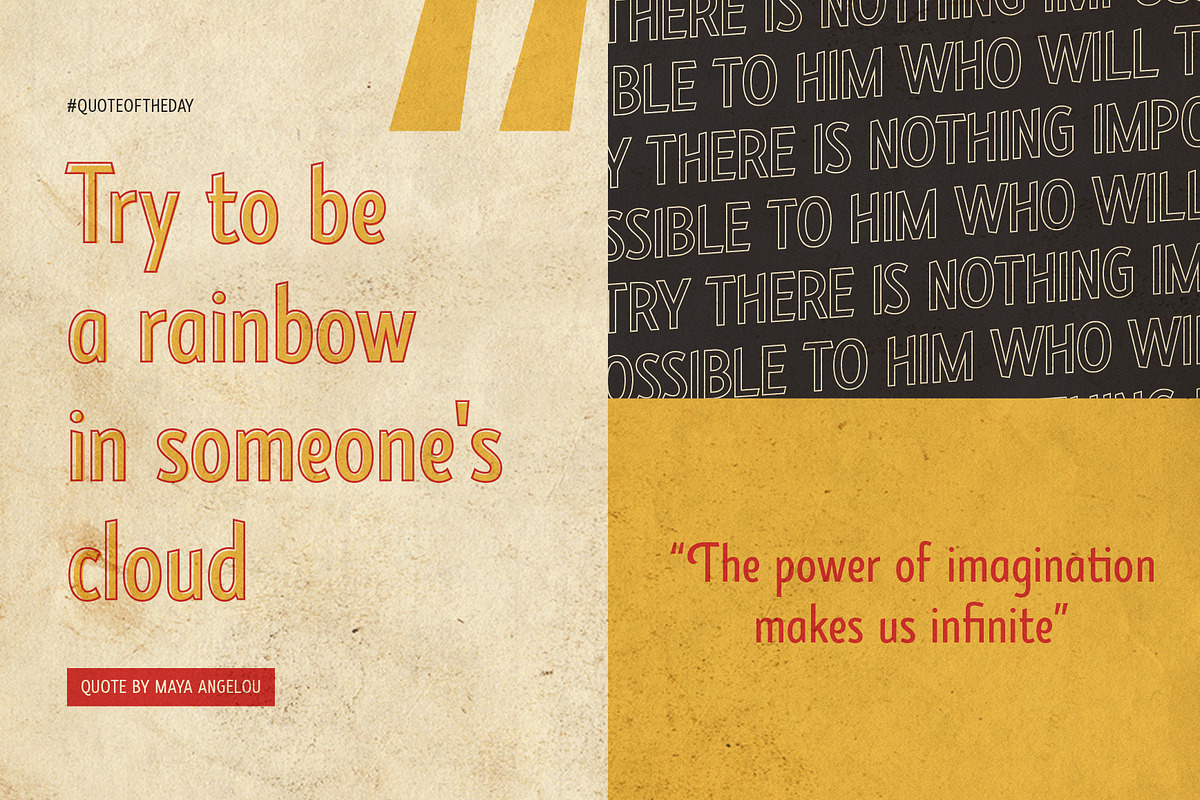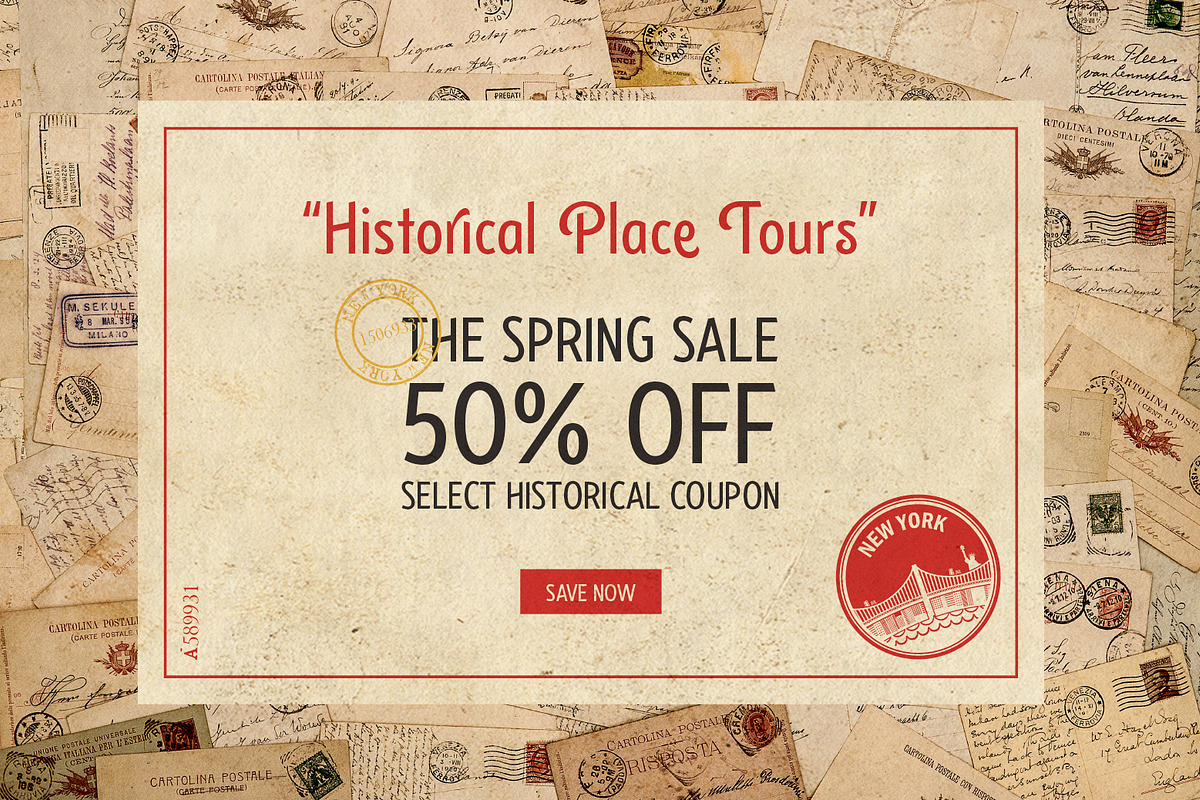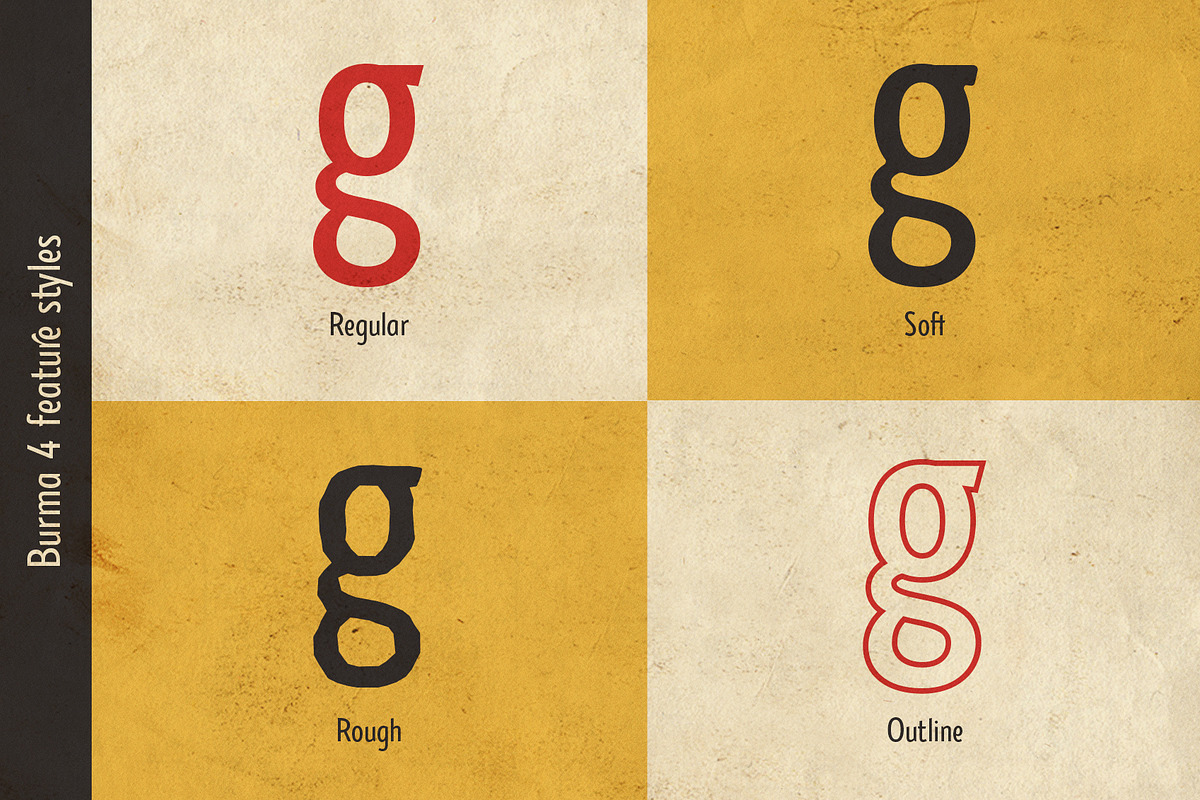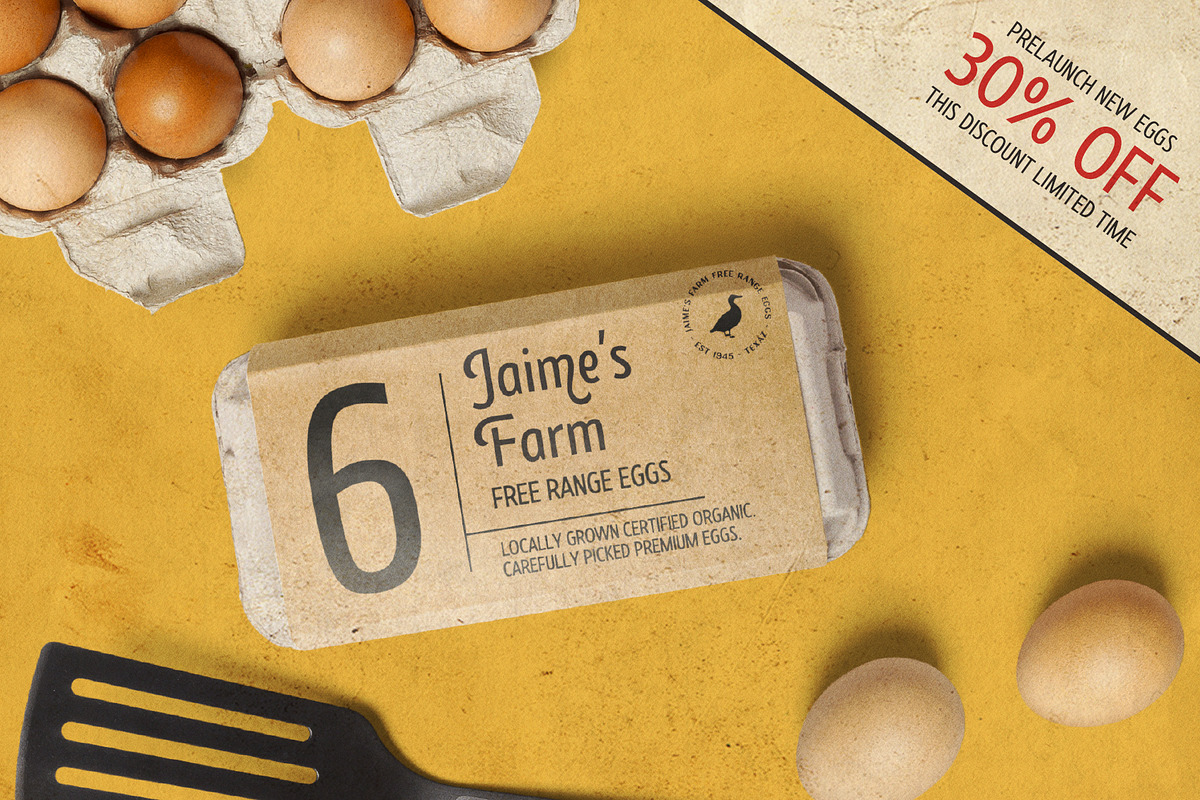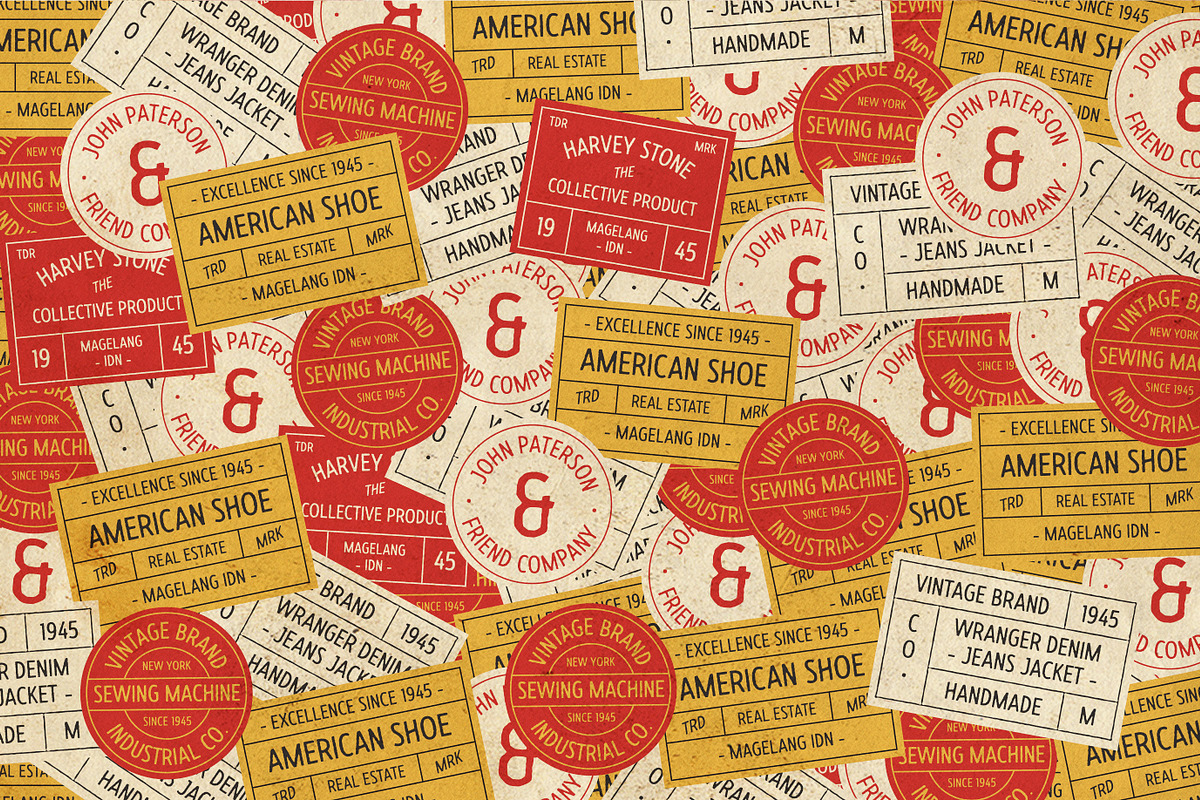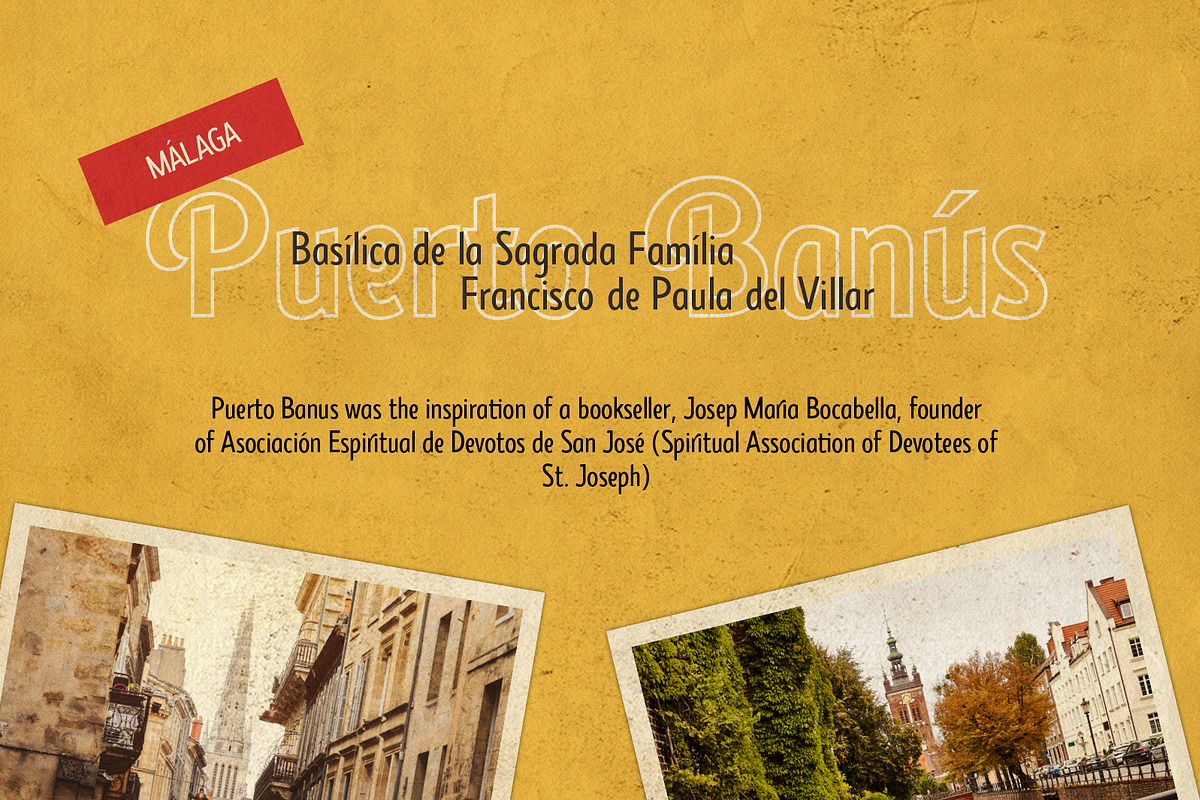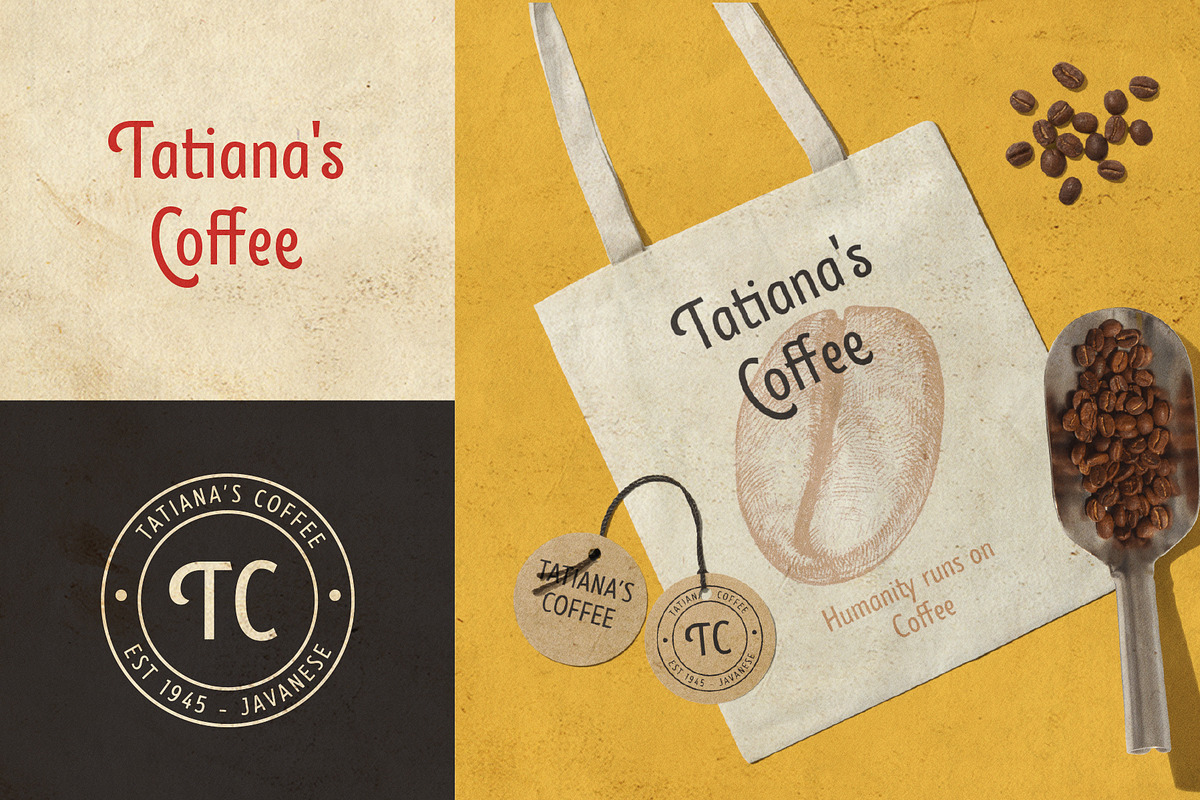
Burma Vintage Font Collection
The Burma perfectly represents vintage aesthetics sans serif display typeface. This project inspired by beautiful lettering in old label. It come with 4 style (regular, soft, rough and outline). Some letter contains beautiful stylistic alternates characters, ss01 - ss04)and feature ligatures
The Burma matches applies in some designs such as the logotype, poster, packaging, branding, quotes, badge and more custom design. The features uppercase, lowercase, numeral, punctuation & symbol, ligatures, alternates, multilingual support, PUA encoded (fully accessible without additional design software).